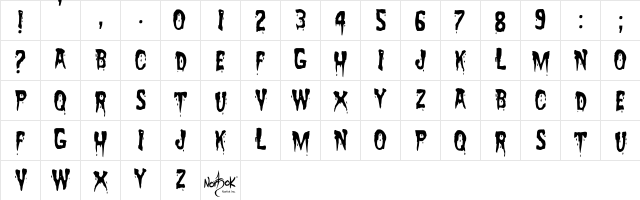
Zreaks NFI Regular
| Designer | Thomas W. Otto |
Design Context for Zreaks NFI Typeface
Zreaks NFI is a composed and adaptable typeface that performs quietly and consistently across a wide range of design contexts.